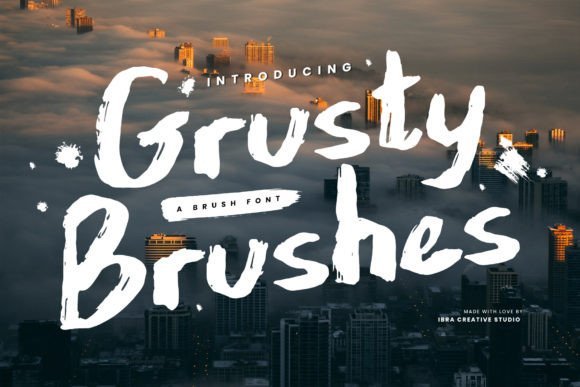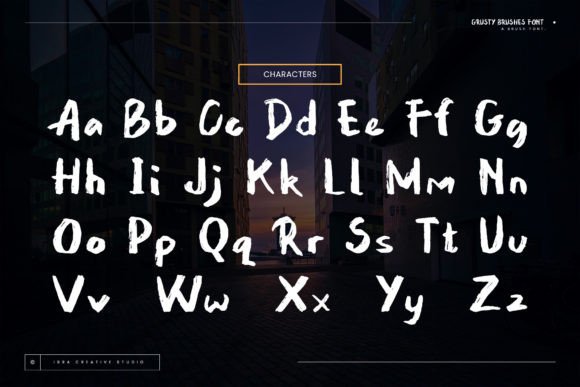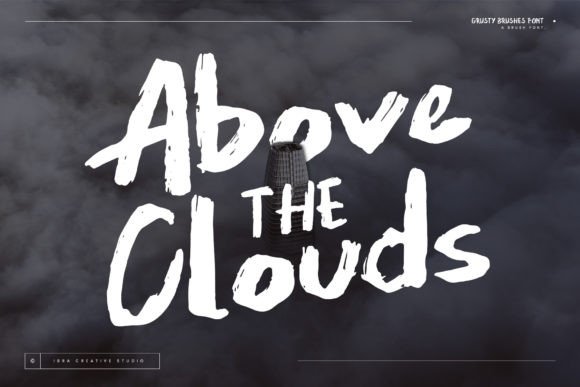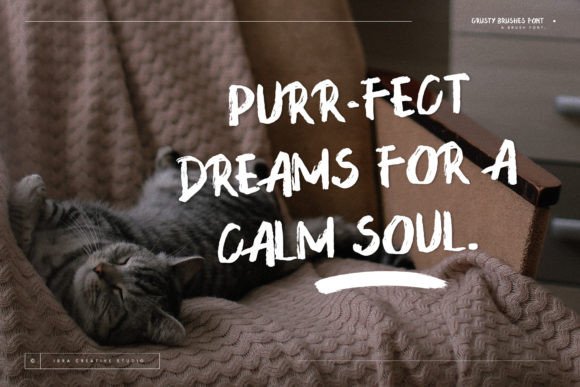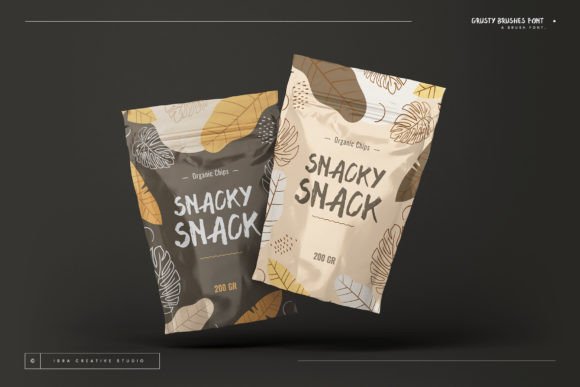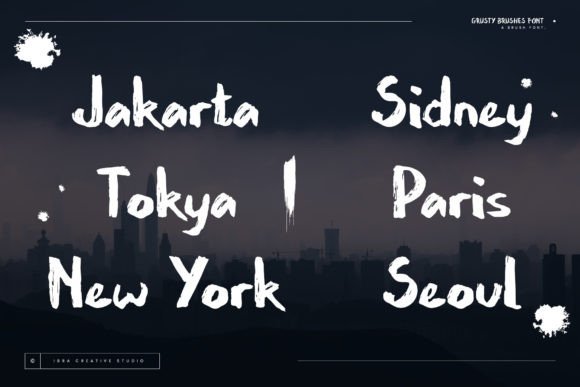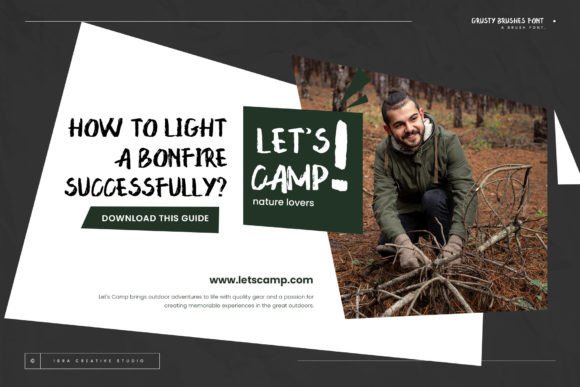
Unleash the Charm of Handcrafted Typography
Have you ever found yourself mesmerized by the unique, hand-painted signs that adorn the walls of quaint cafes or vintage shops? The imperfections and character that come with each stroke of the brush can evoke a sense of warmth and personality that digital fonts often lack. As designers, we’re always on the lookout for ways to infuse our designs with a touch of human touch, and that’s where the Grusty Brushes Font comes in.
This exquisite brush font effortlessly combines elegance with a touch of rustic charm, making it a versatile choice for designers seeking to convey a warm and approachable feel in their projects. With its delightful irregularities and handcrafted authenticity, the Grusty Brushes Font is a valuable addition to any design toolkit, allowing you to add a personal touch to your work.
Key Features of Grusty Brushes Font
- Font Family: Grusty Brushes Font offers a unique and eclectic font family with multiple styles and weights.
- Unique Characteristics: The font features a distressed, hand-painted look with irregular brushstrokes and textures, perfect for adding a touch of whimsy and personality to designs.
- Character Set: Includes a comprehensive character set with over 500 glyphs, including Latin, Cyrillic, and Greek alphabets, as well as punctuation and symbols.
Grusty Brushes Font Review
Overall, I’m impressed with the unique character of the Grusty Brushes Font. ✨ The distressed, hand-drawn feel adds a touch of personality to any design project. It’s perfect for creating a vintage or retro aesthetic, and it’s a great choice for designers who want to stand out from the crowd.
The font’s imperfections and irregularities give it a human touch that’s hard to replicate with more polished fonts. ✨ It’s a great choice for headings and titles, where you want to grab the user’s attention. The font also works well in combination with other distressed or vintage fonts to create a cohesive look.
- Unique, distressed design that adds personality to designs
- Perfect for vintage or retro aesthetics
- Great for headings and titles
- Works well in combination with other distressed or vintage fonts
- May not be suitable for body text, due to its irregularity and imperfections
- Can be difficult to read in smaller font sizes
- May not be suitable for designs where a clean, polished look is desired
In terms of overall impression, I’d say the Grusty Brushes Font is a great addition to any designer’s toolkit. While it may have some limitations, its unique character and versatility make it a valuable asset for designers who want to add some personality to their designs.
Tips for Getting the Most Out of Grusty Brushes Font
For best results, use the Grusty Brushes Font for titles, headings, and other emphasis text. Pair it with a clean, simple font for body text to create a visually appealing contrast.
The Grusty Brushes Font is ideal for creating distressed or vintage-style designs, such as:
- Old-fashioned signs and posters
- Vintage-inspired packaging and labels
- Retro-style social media graphics
Alternatives to Grusty Brushes Font
Bad Script
Bad Script is a handwritten font that is perfect for creating a casual and relaxed atmosphere. It is ideal for use in advertising, social media, and blogs where a friendly tone is required.
Compared to Grusty Brushes Font, Bad Script has a more playful and whimsical feel, making it suitable for a wider range of applications. While Grusty Brushes Font has a more rugged and grungy texture, Bad Script has a softer and more fluid look.
Pacifico is a beautiful and elegant script font that is perfect for creating a luxurious and sophisticated atmosphere. It is ideal for use in high-end branding, packaging, and advertising where a touch of class is required.